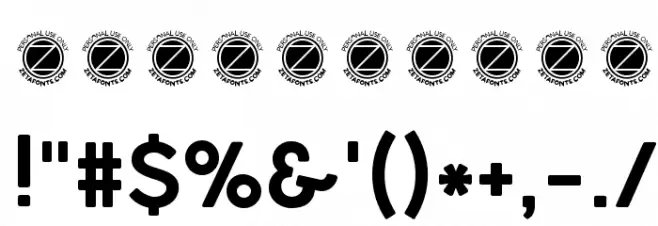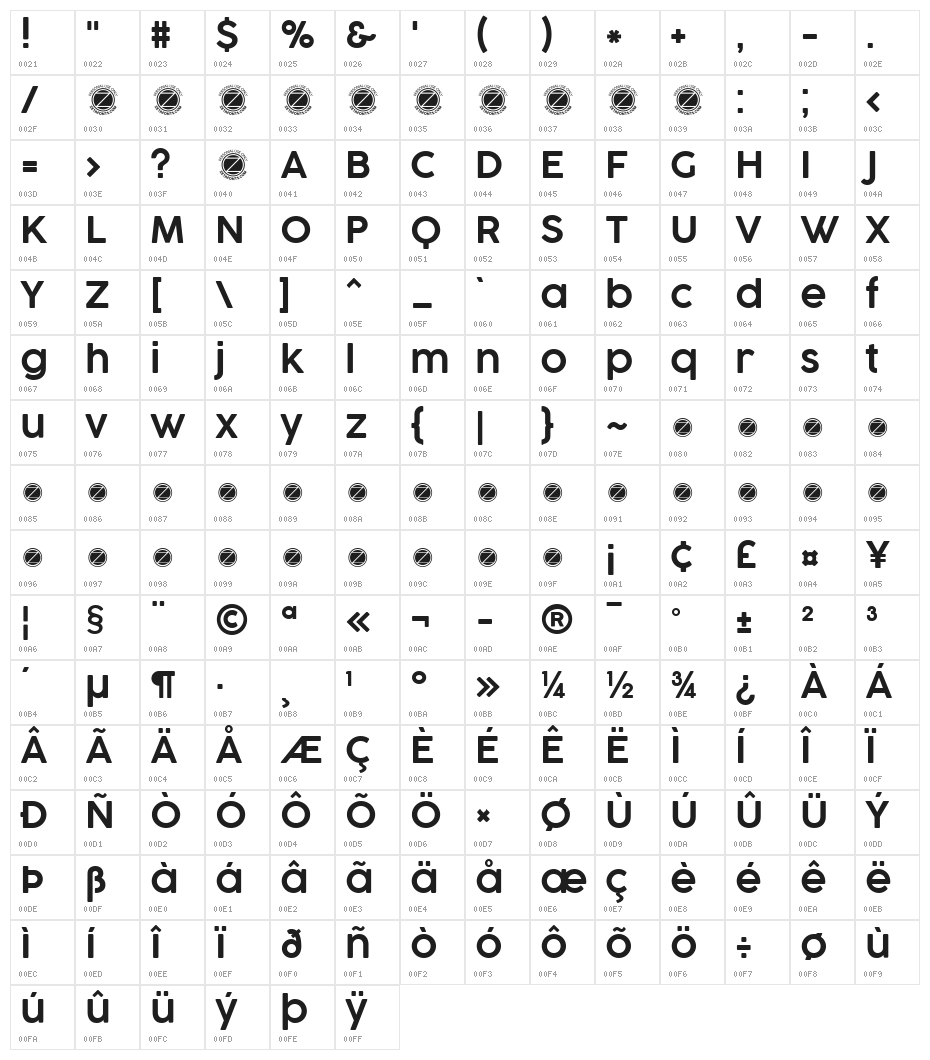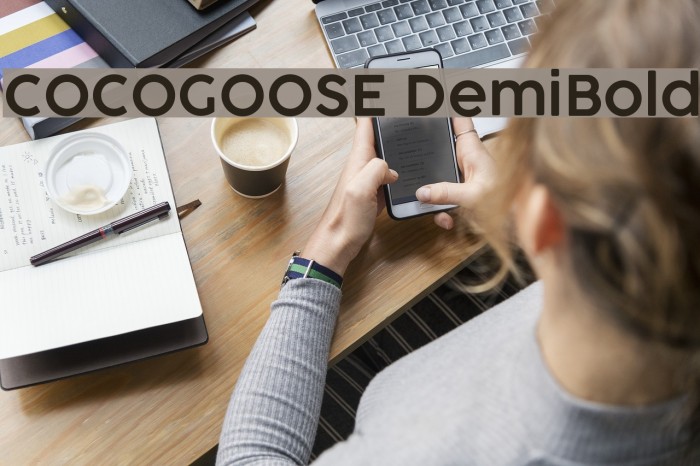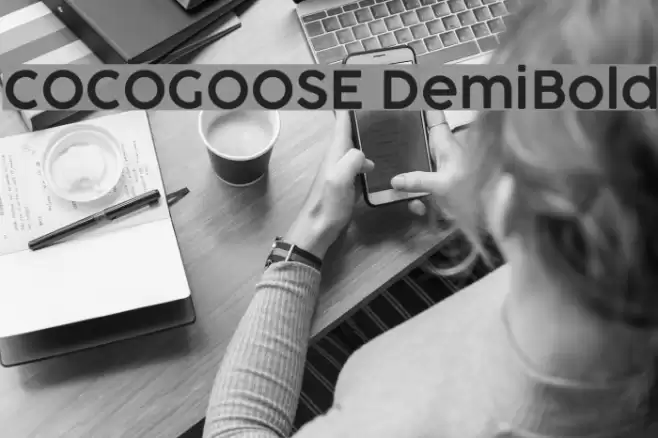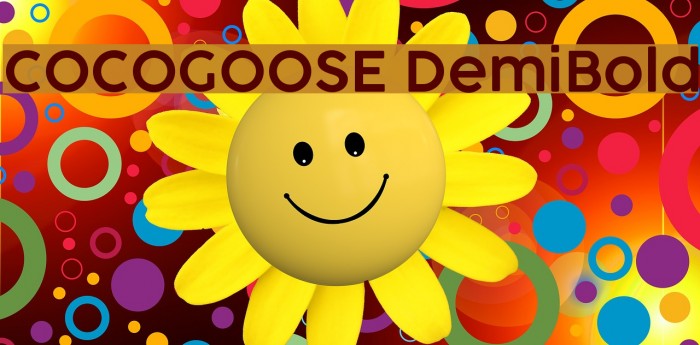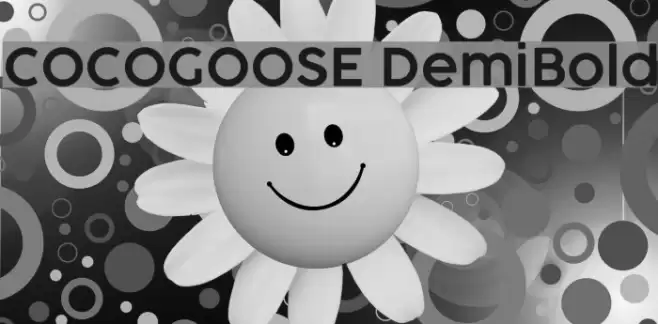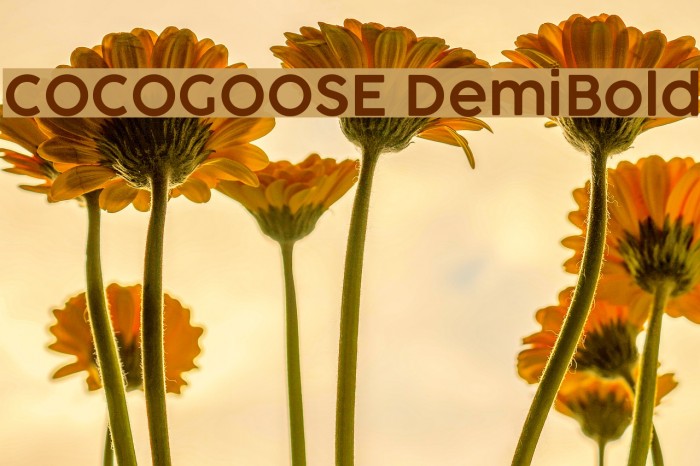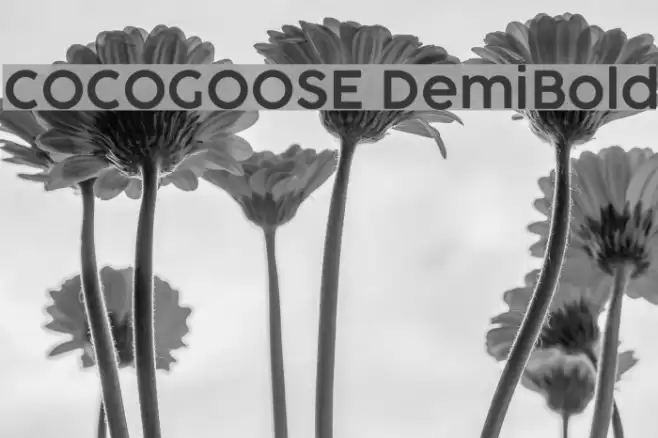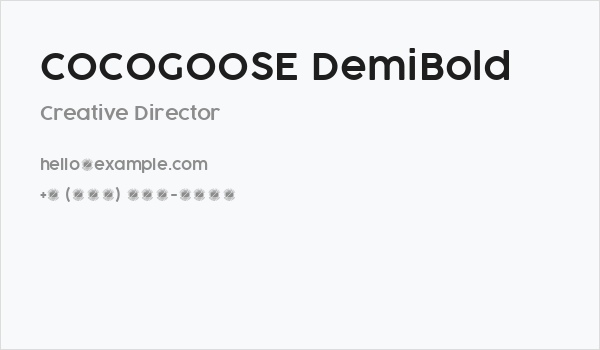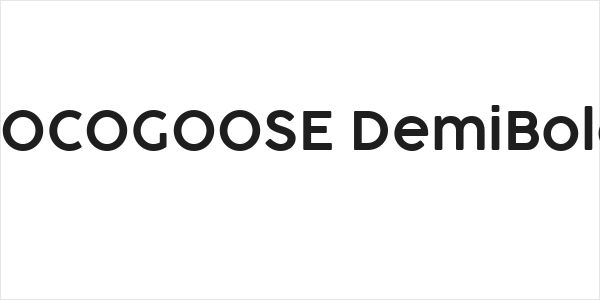
COCOGOOSE DemiBold Font
COCOGOOSE DemiBold Description
This font features a bold and modern sans-serif style with clean, geometric lines. The characters are well-balanced, offering a uniform appearance that enhances readability. The uppercase and lowercase letters maintain a consistent width, while the rounded edges provide a friendly and approachable feel. The numerals and special characters are designed to match the overall aesthetic, ensuring a cohesive look across all text elements. This font is versatile, suitable for a variety of design projects that require a contemporary and professional touch.
| Proposed Projects | Ideal for branding, advertising, web design, and editorial projects that require a modern and professional appearance. |